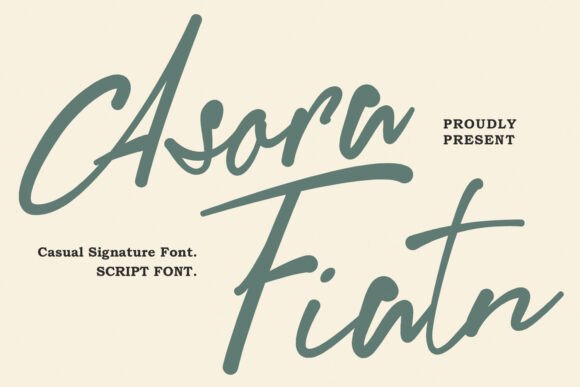
The Designer’s Delight: Asora Fiatn Font
I’ll never forget the time I was working on a branding project for a boutique bakery, and I just couldn’t find the right font to capture their whimsical, handcrafted vibe. The client wanted something that felt authentic, like a personal signature, but I was stuck in a sea of generic sans-serifs. That’s when I stumbled upon the Asora Fiatn Casual Signature Script Font – and it was love at first sight! 💕
So, what makes Asora Fiatn so special? Let’s dive into the good stuff:
- ✨ Authentic brush-handcrafted feel: This font truly captures the essence of hand-lettering, with subtle imperfections and a personal touch.
- ✅ Versatile and flexible: From signature and stationery to logo design, typography quotes, and website headers, Asora Fiatn can handle it all.
- 🎨 Beautifully crafted: The font’s attention to detail is impressive, with gorgeous letterforms and thoughtful kerning.
Of course, no font is perfect, and Asora Fiatn has a few minor quirks:
- 🤔 Limited multilingual support: While the font covers the basics, it might not be the best choice for projects requiring extensive language support.
- ⚠️ Some glyphs require manual adjustment: A few glyphs might need tweaking to fit perfectly in your design, but trust me, it’s worth it.
One of the best things about Asora Fiatn is its range of OpenType features and glyphs. With a font like this, you can:
- Access alternate characters: Switch between different versions of letters, numbers, and punctuation to add visual interest to your design.
- Use ligatures and stylistic sets: Combine letters and characters in creative ways to craft unique typography.
- Customize your design: With a range of glyphs and alternates at your disposal, you can tailor Asora Fiatn to fit your project’s specific needs.
The Designer Inspiration Behind Asora Fiatn
While the true story behind Asora Fiatn remains a mystery, it’s easy to imagine a designer who fell in love with traditional brush-lettering and set out to capture its essence in a digital font. Perhaps they spent hours pouring over vintage typography books, experimenting with ink and brush, and refining their craft. Whatever the inspiration, the result is a font that feels authentic, personal, and full of character.
| What makes Asora Fiatn so special? | Asora Fiatn’s unique blend of authentic brush-handcrafted feel and versatility makes it perfect for a wide range of design projects. |
| Is Asora Fiatn suitable for body text? | While Asora Fiatn is stunning as a display font, it may not be the best choice for lengthy body text. Consider pairing it with a complementary font for optimal readability. |